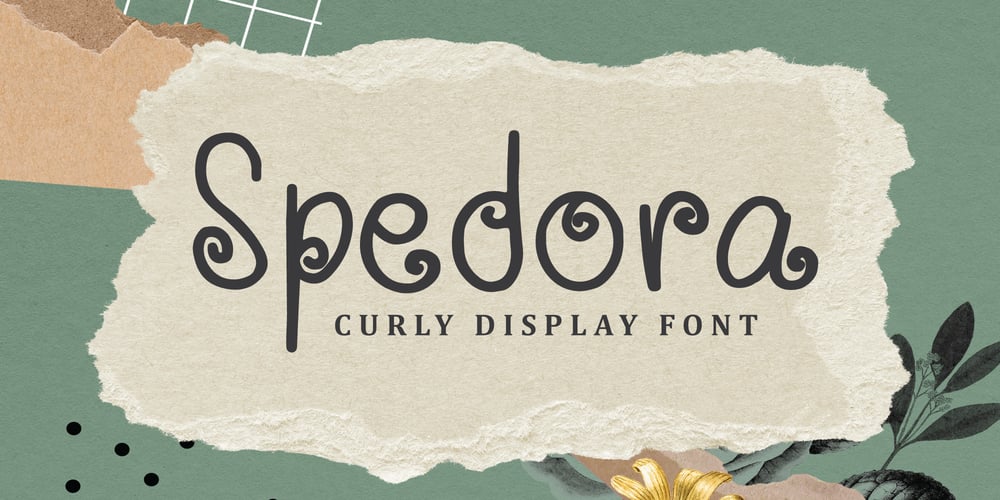
Spedora Font Family was designed by Lia Almuknisa and published by Fromletterel. Spedora contains 1 styles and family package options. Spedora is a curly and cute display font. Expertly designed to make your creation look out of this world, this font will look gorgeous on a variety of ideas such as posters, stickers, social media materials, etc.